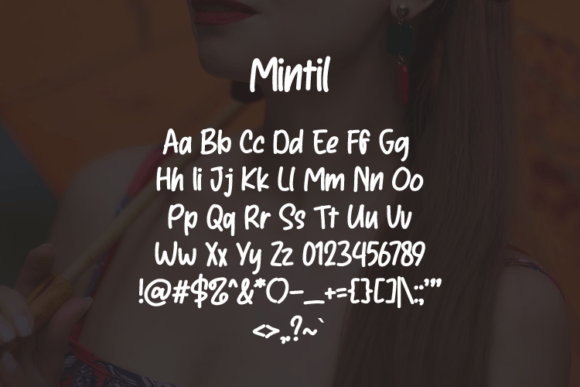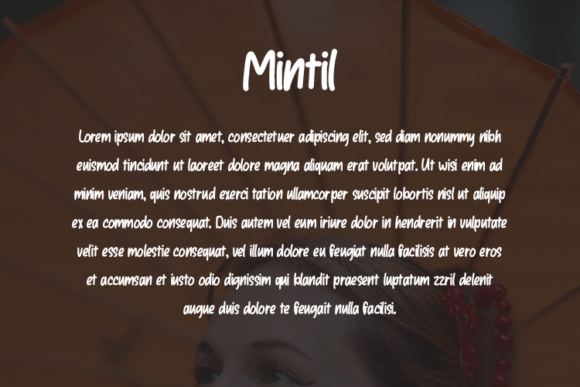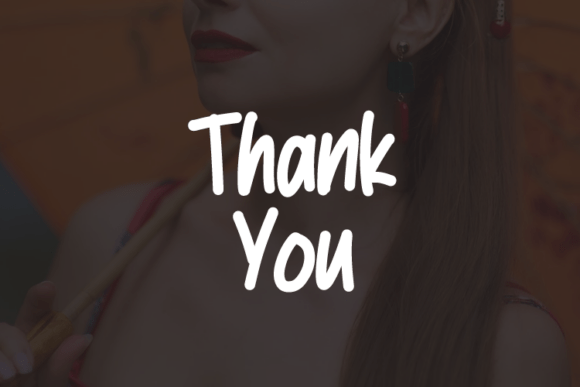
Introduction to Mintil Font
As a designer, you’ve likely found yourself staring at a blank page, struggling to find the perfect font to bring your creative project to life. But what if I told you that there’s a font that can make your design process a whole lot easier? Enter the Mintil Font, a modern and elegant typeface designed to deliver exceptional readability across a wide range of media.
With its sleek design and high-quality aesthetic, the Mintil Font is an invaluable resource for designers looking to add a touch of sophistication to their work. Whether you’re working on a branding project, creating marketing materials, or designing a website, this font is sure to impress. Plus, with its transparent background and cross-platform compatibility, you can trust that your design will look its best on any device.
Key Features of Mintil Font
- Supports a wide range of languages and characters, making it a versatile design resource.
- Includes 8 font styles, each with its unique characteristics and design elements.
- Designed with a modern and sleek aesthetic, ideal for use in various creative projects.
Honest Review: Mintil Font
I recently stumbled upon the Mintil Font, and I must say it’s a fantastic design resource for any creative project. The first thing that caught my attention was the high quality of the font, which is perfect for designers who need a clean and modern look.
- ⚠️ The font may not be suitable for use in small sizes or for text-heavy designs, as the letters can become blurry.
- ⚠️ Some users may find the font’s modern style too trendy or overused.
Overall, I’m impressed with the Mintil Font, and I would definitely recommend it for designers who are looking for a high-quality, free design resource. With a little creativity, the Mintil Font can be a valuable addition to any design project.
Tips for Getting the Most Out of Mintil Font
Use Mintil Font in conjunction with a transparent background to create stunning graphics and designs. Experiment with different font sizes and styles to find the perfect look for your project. With its high-quality design and free download option, Mintil Font is the perfect design resource for any creative project.
Mintil Font is perfect for use in logos, branding materials, and marketing materials. Its high-quality design and transparent background feature make it ideal for creating eye-catching graphics and designs. Whether you’re working on a personal project or a professional design, Mintil Font is the perfect choice.